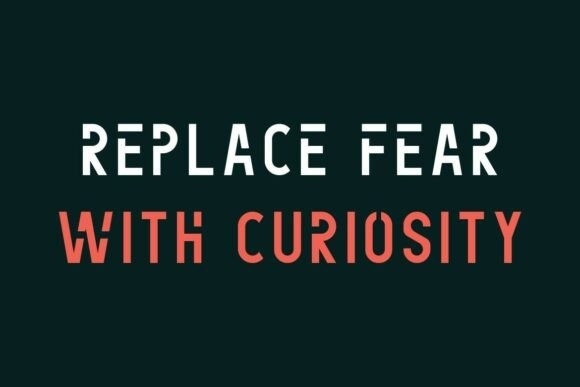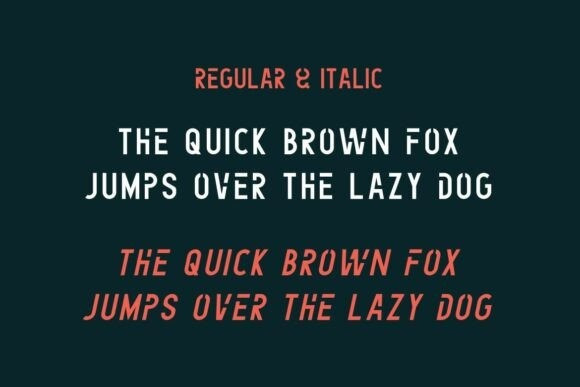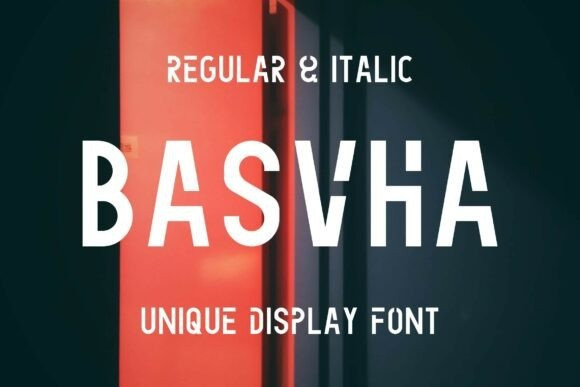
Basvha Font
Basvha Font is a strong and balanced sans serif font designed to communicate with clarity and purpose. With clean lines, geometric precision, and a neutral tone, Bashva is perfect for branding, editorial layouts, signage, presentations, packaging, and digital interfaces that require a smart and professional aesthetic.